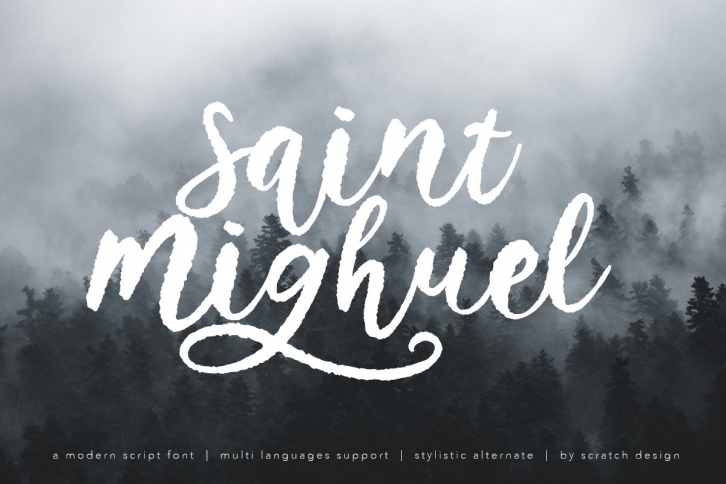
Saint Mighuel is a gorgeous font that was realeased on September 4, 2020. The font can be used in many style contexts and design environments. Perfect for invitations, magazines, websites, logos, and more! It was designed by Scratch Design Bali and the file size is 6.71 MB. Thanks for checking out this font!